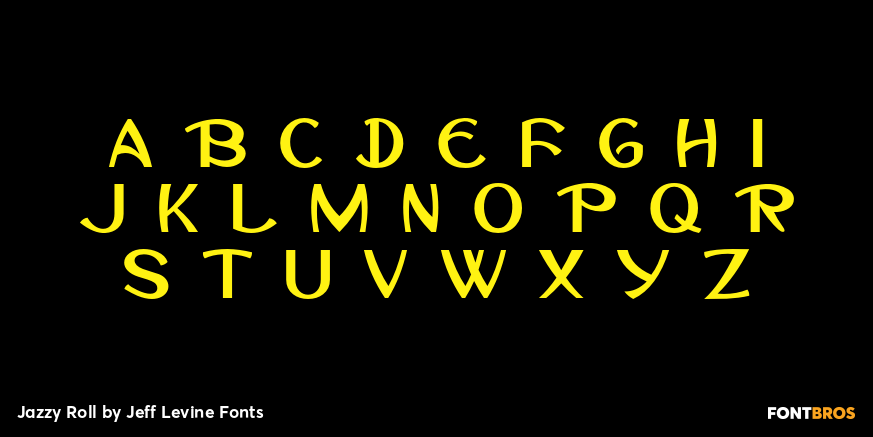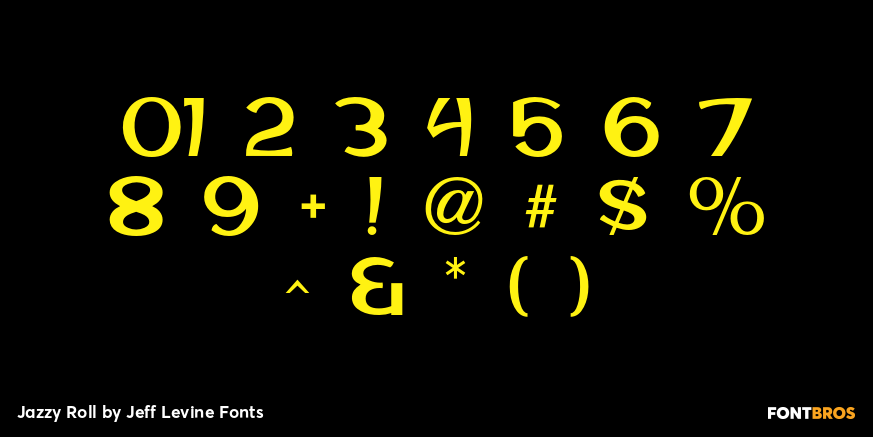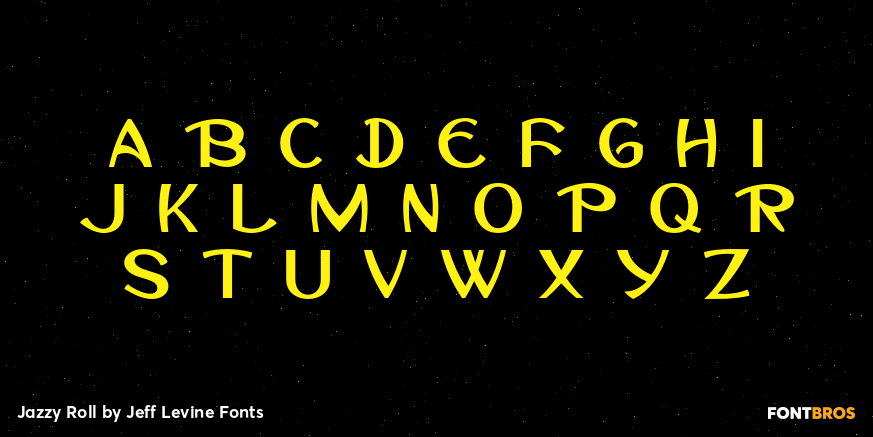
Jazzy Roll
The 1915 sheet music for the tune 'Dancing the Jelly Roll Song” by Nat Vincent and Herman Paley featured the title hand-lettered in a sans serif design strongly influenced by the Art Nouveau movement of the early 20th Century. This formed the basis for Jazzy Roll JNL.